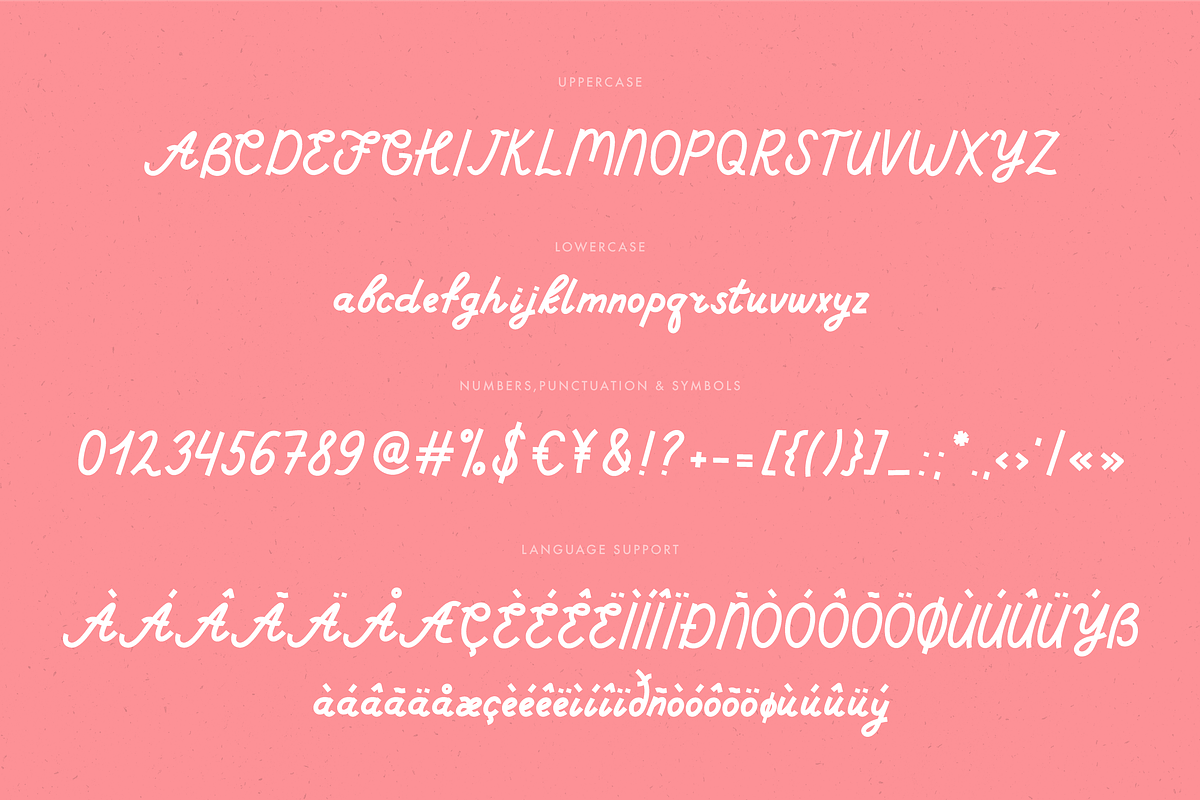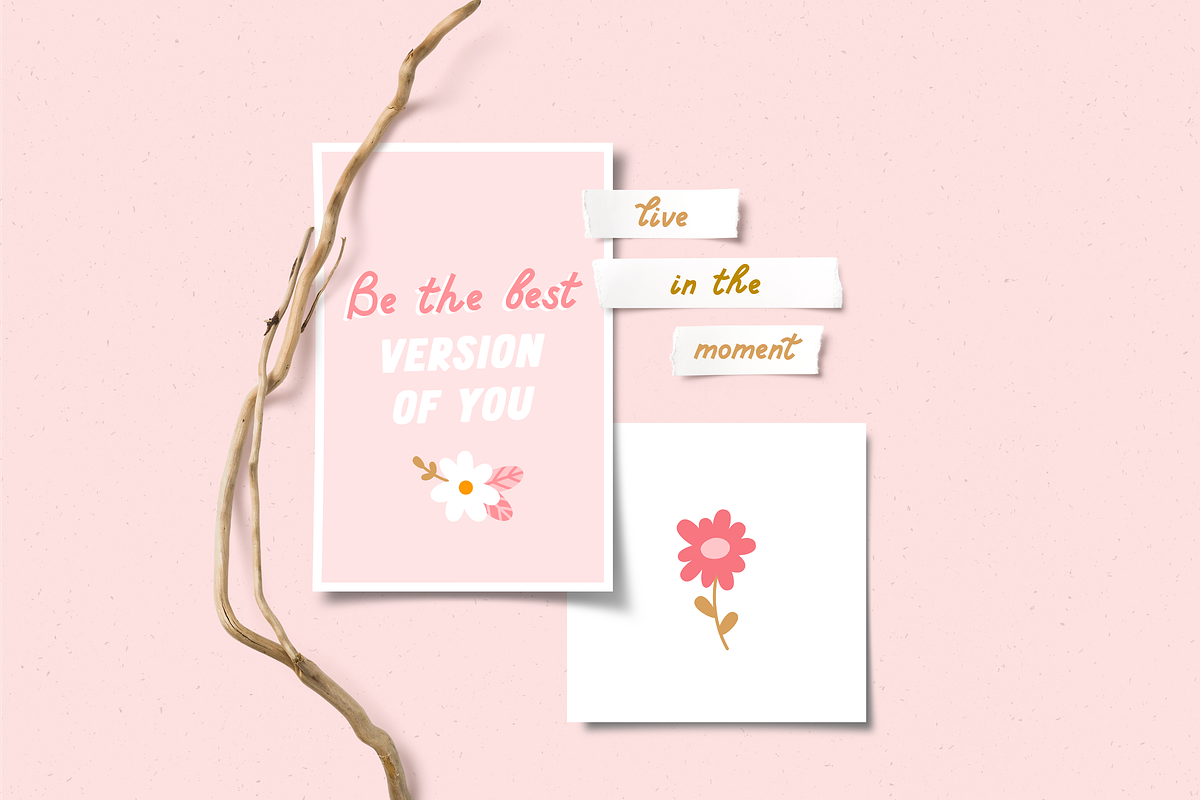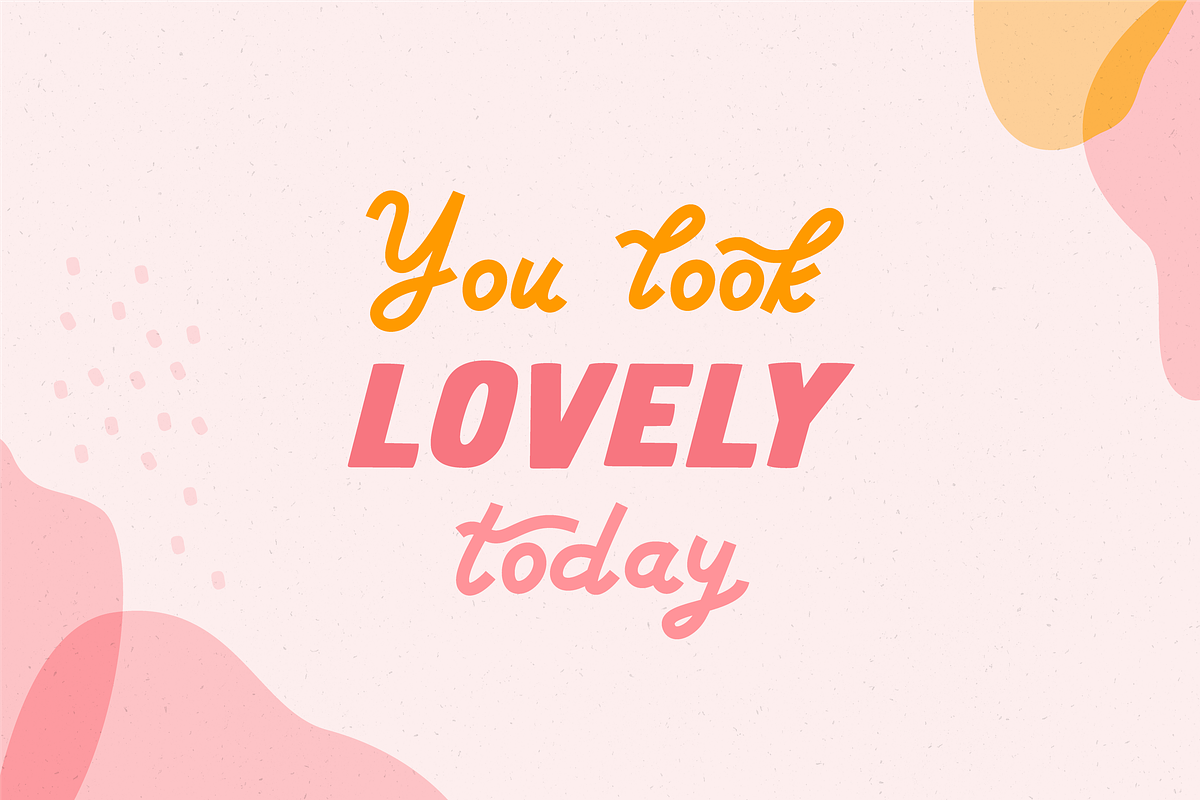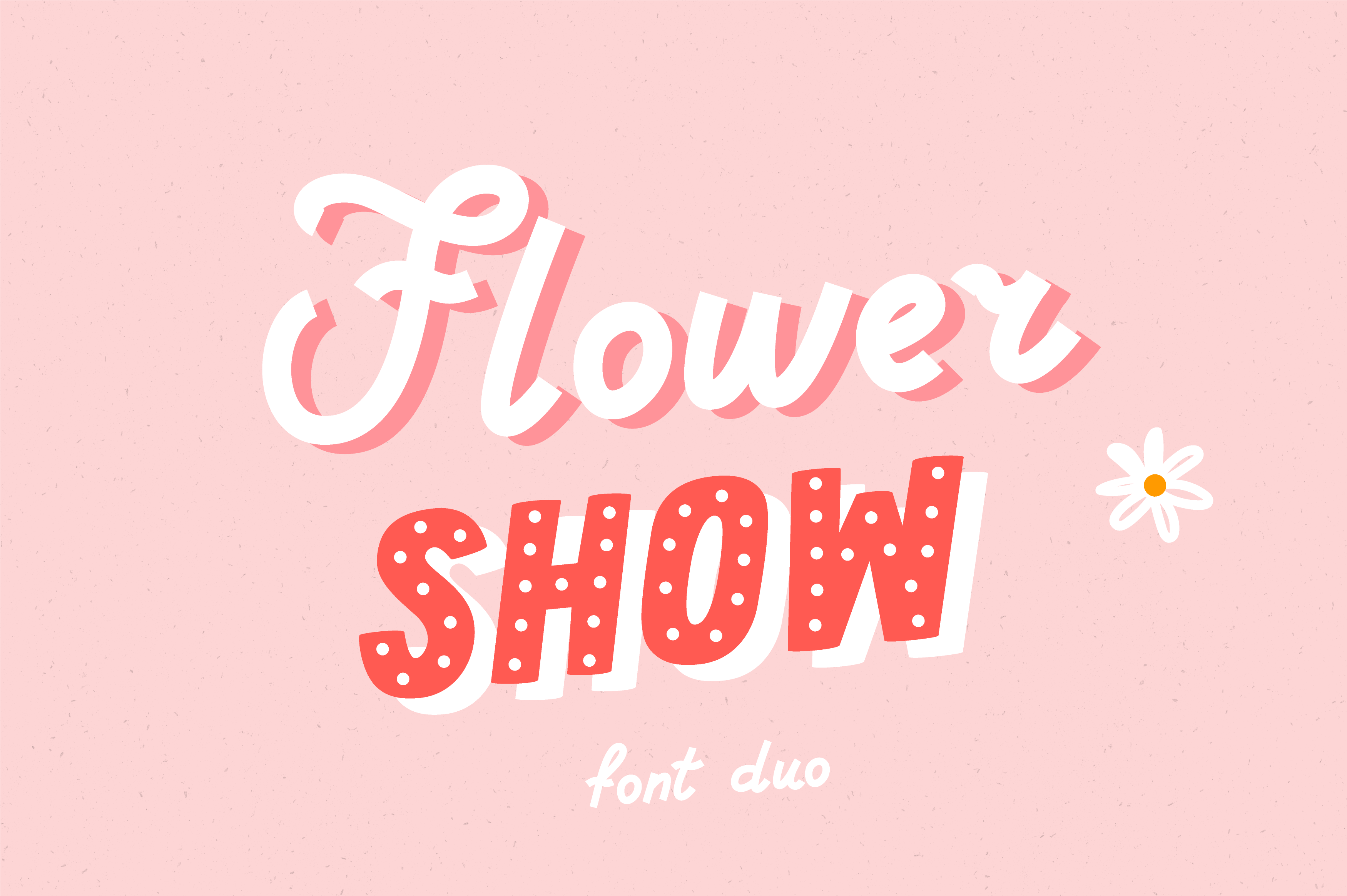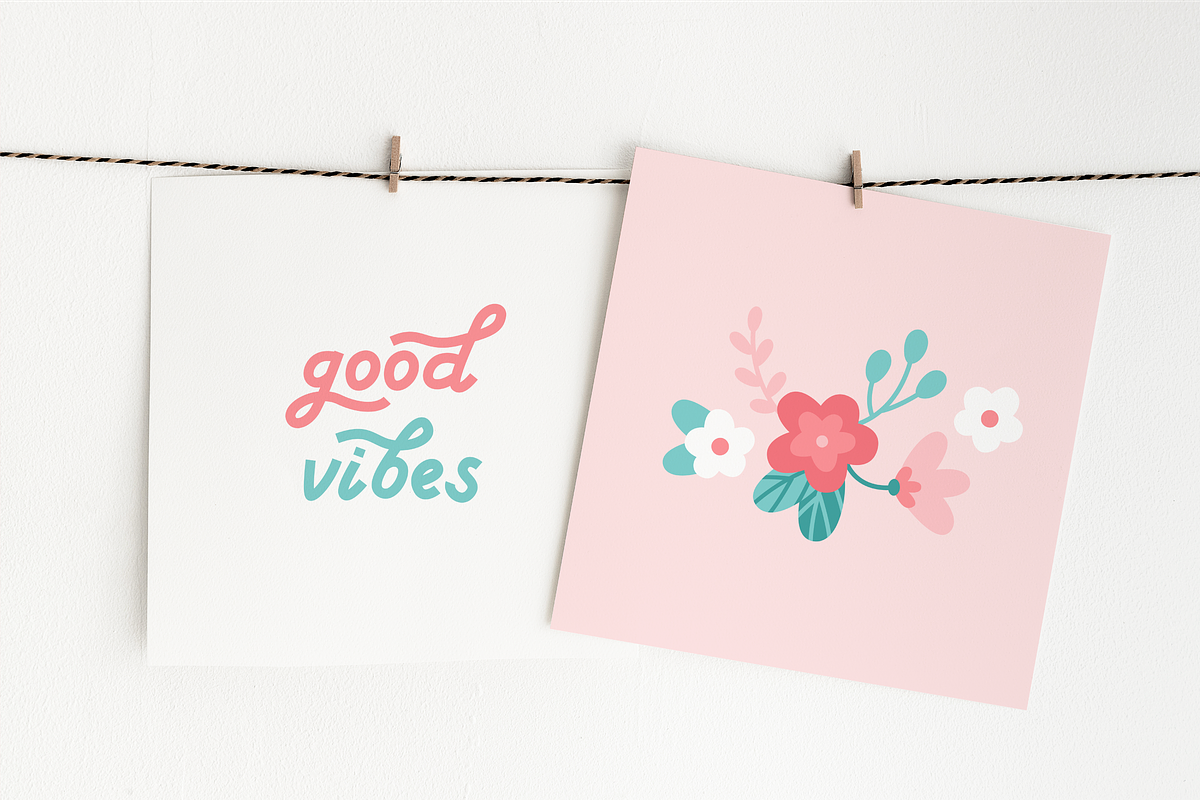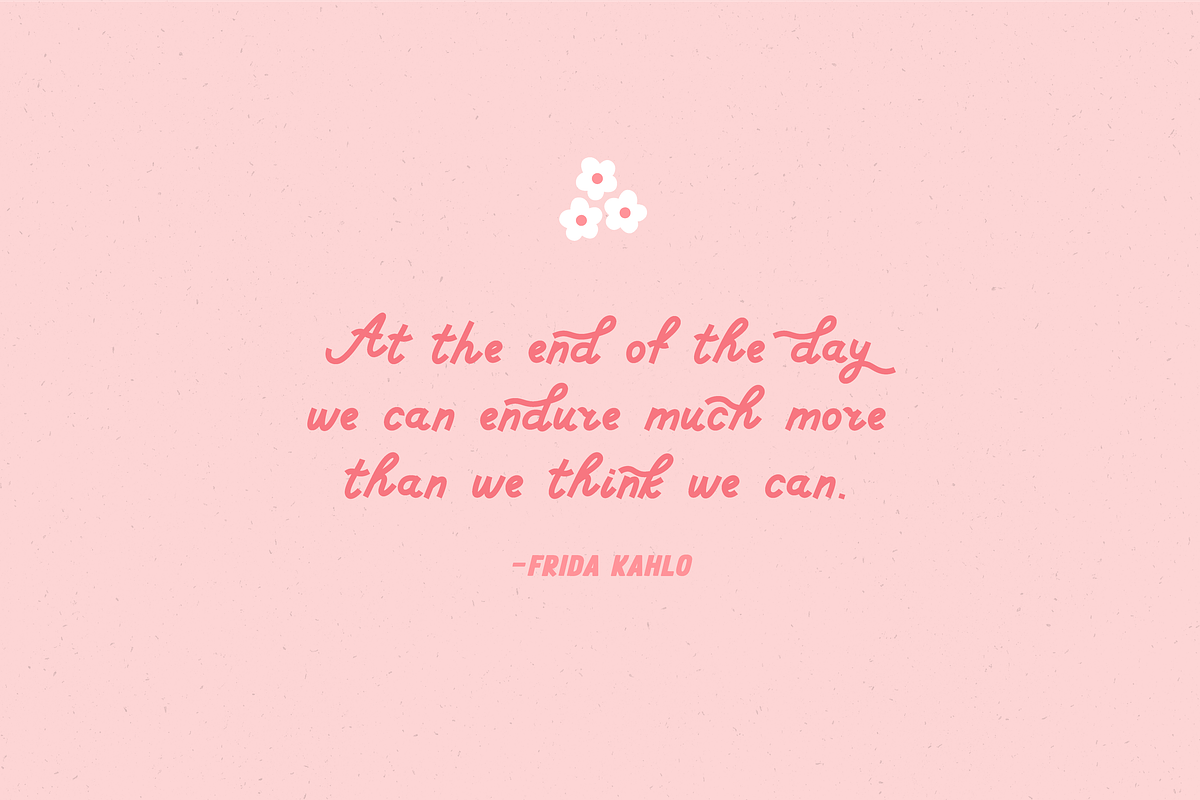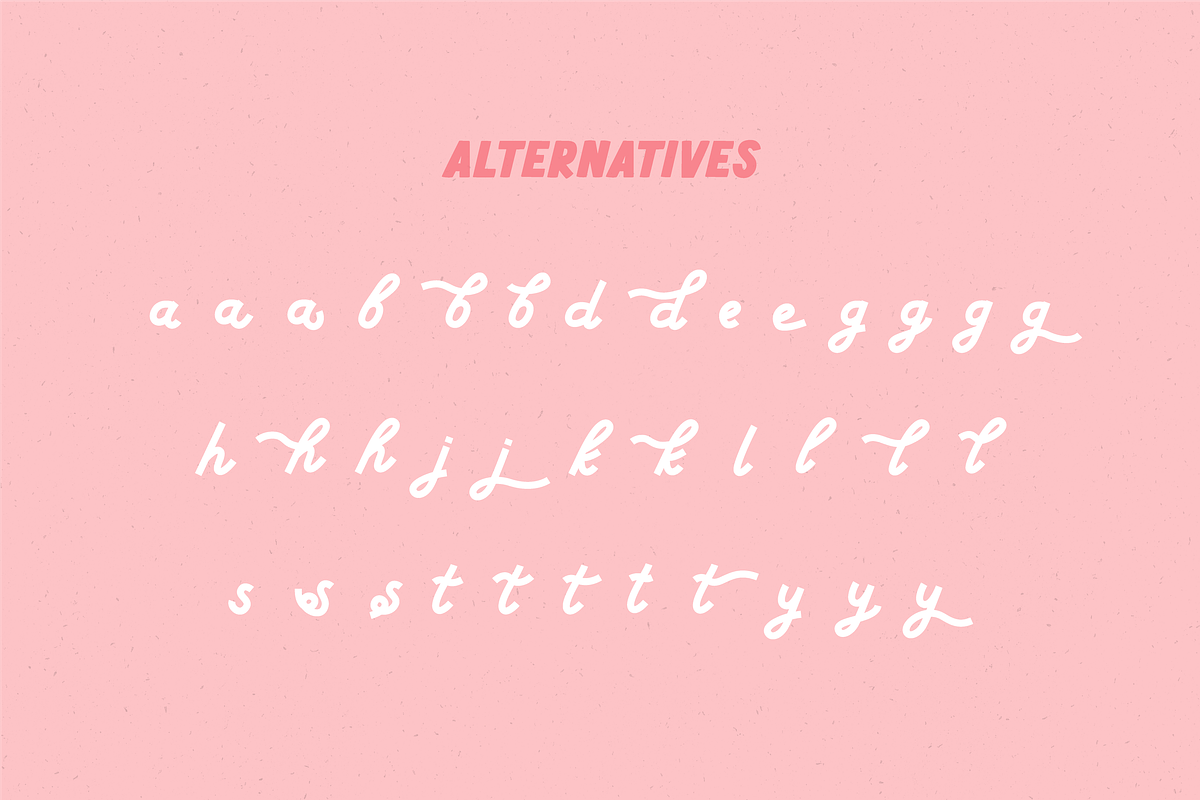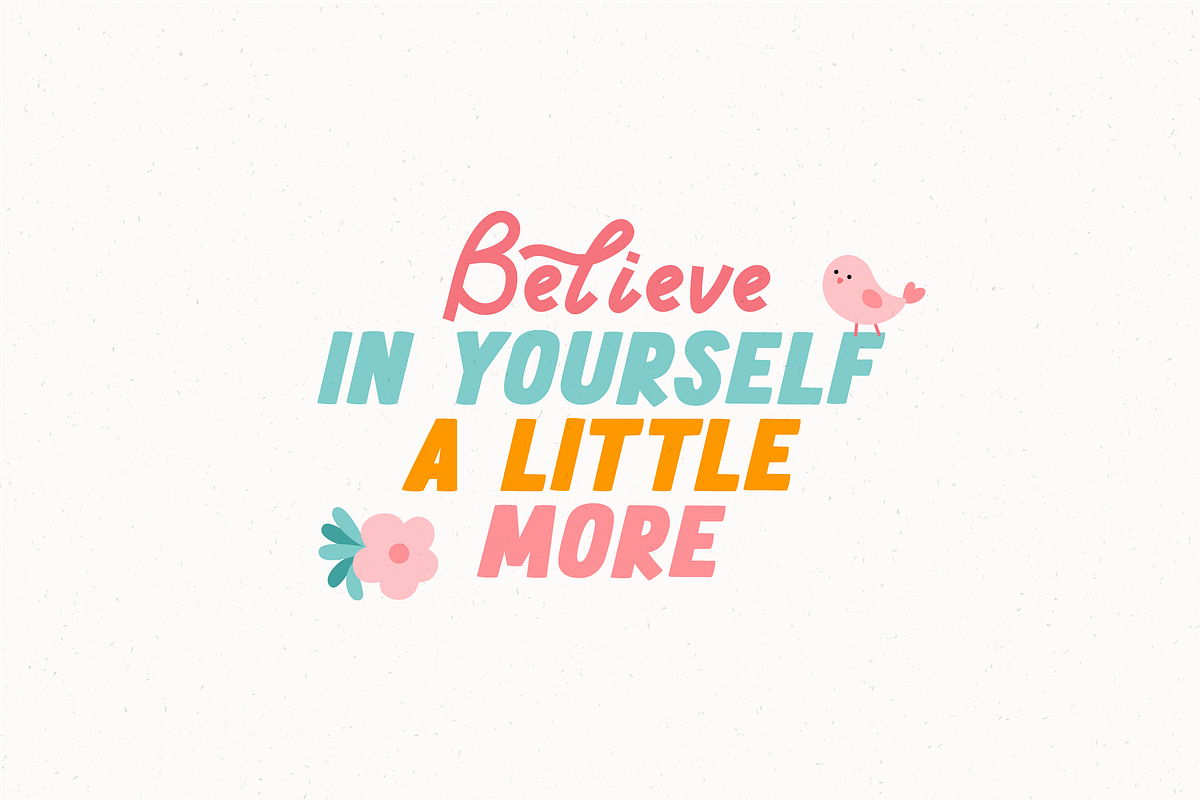
Flower show | Font duo
Flower show - playful hand-drawn font duo. Use for logos, quotes, invitations, greeting cards, journals, posters, baby clothing and more. This font will make your design looks great and fun!